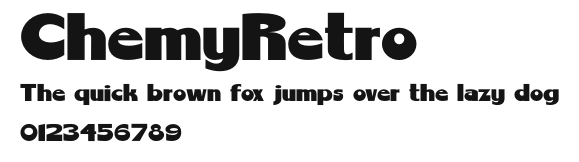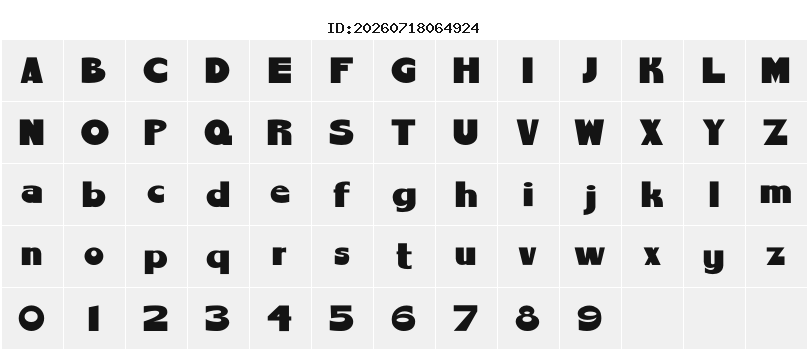
• Font Name: ChemyRetro
• Designer: J. Batchelor
• Manufacturer: J Batchelor (WanderingJazz)
About ChemyRetro.otf
ChemyRetro.otf is a modern, elegant sans-serif font designed for ultimate readability and visual harmony. Perfect for branding, headlines, web design, and print materials.